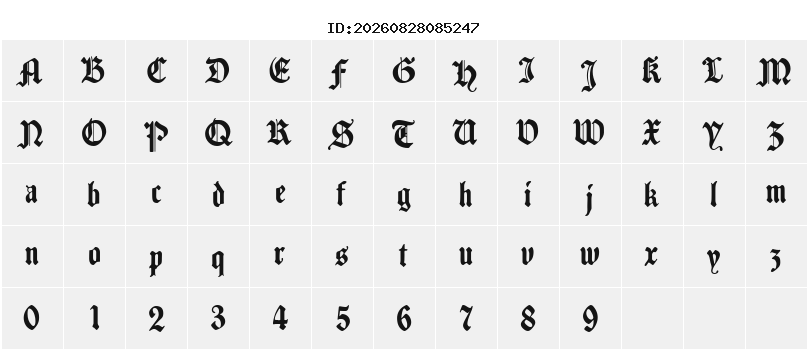
Traditio AH Preview
• Font Name: Traditio AH
• Designer: Andreas Höfeld
• Manufacturer: Fontgrube AH
• Description: Based on German beer advertising, this typeface in the style of a 19th century Textura ("Old English") was elaborated in 2007-2013 by Andreas Höfeld (Fontgrube). Its uppercase characters are often close to the familiar forms of Latin Antiqua letters, which makes it more legible for modern readers. "Traditio" ist the Latin word for "Tradition", a word taken from the sample that inspired this font. For professional purposes there is a full version available with additional characters and the swash r and s.